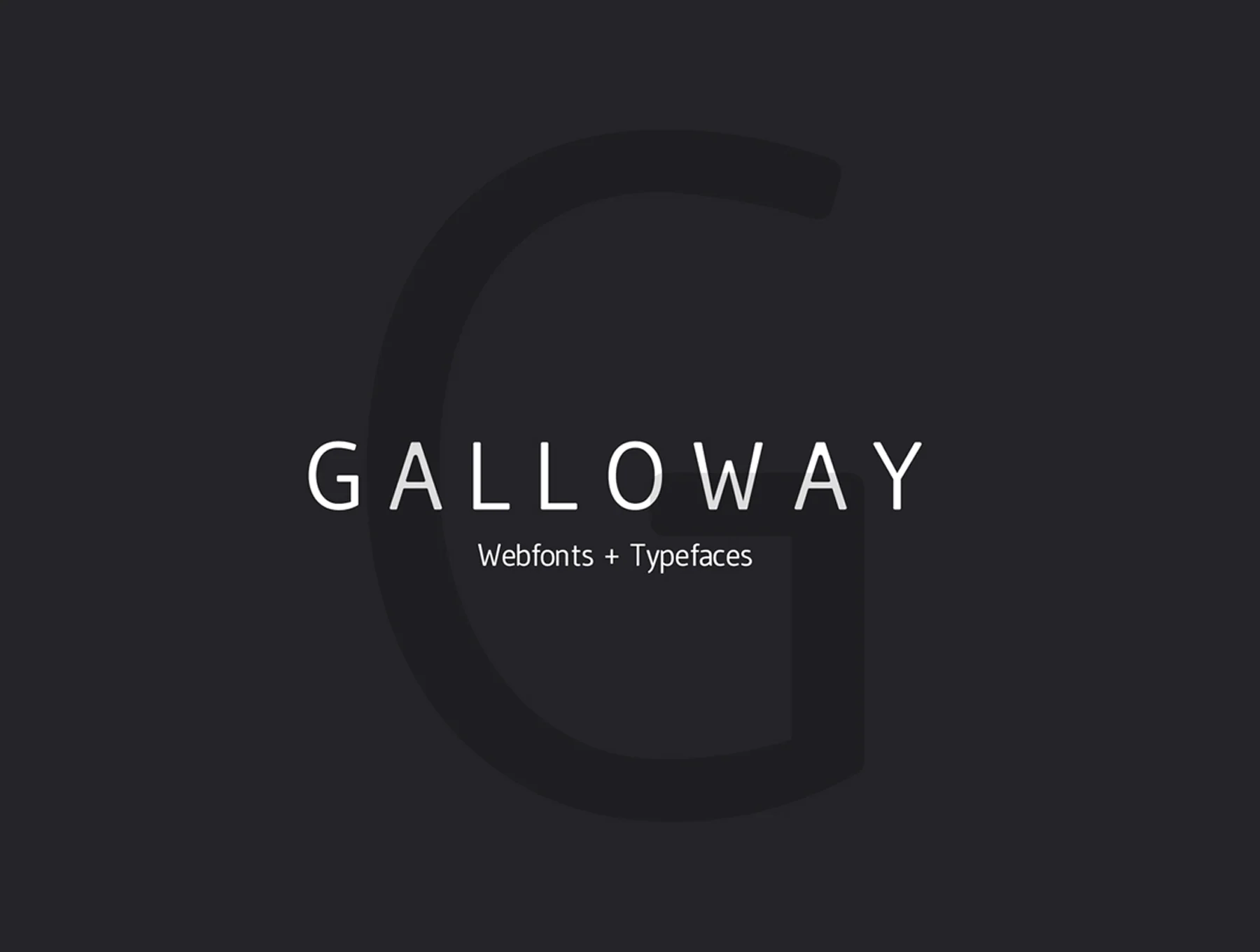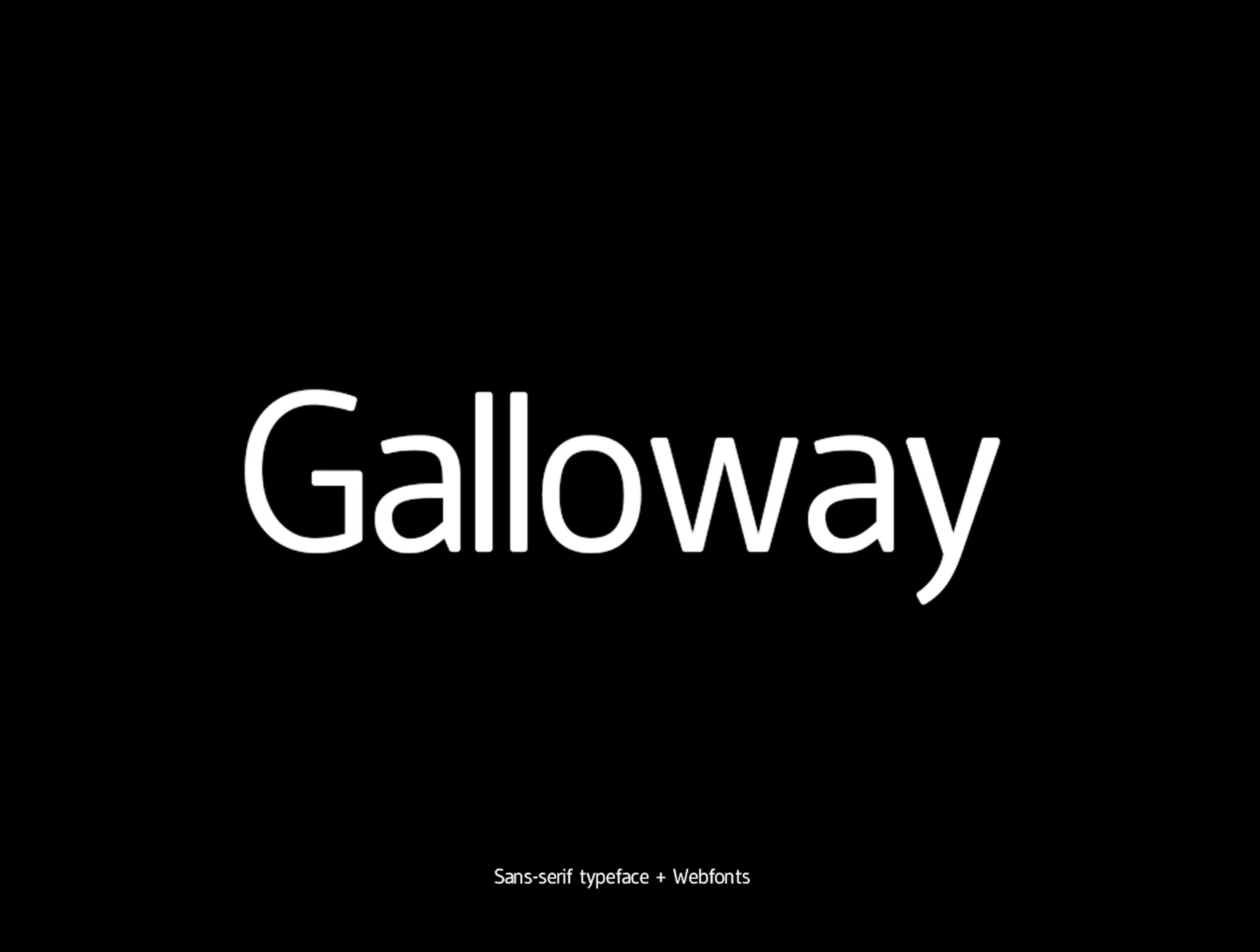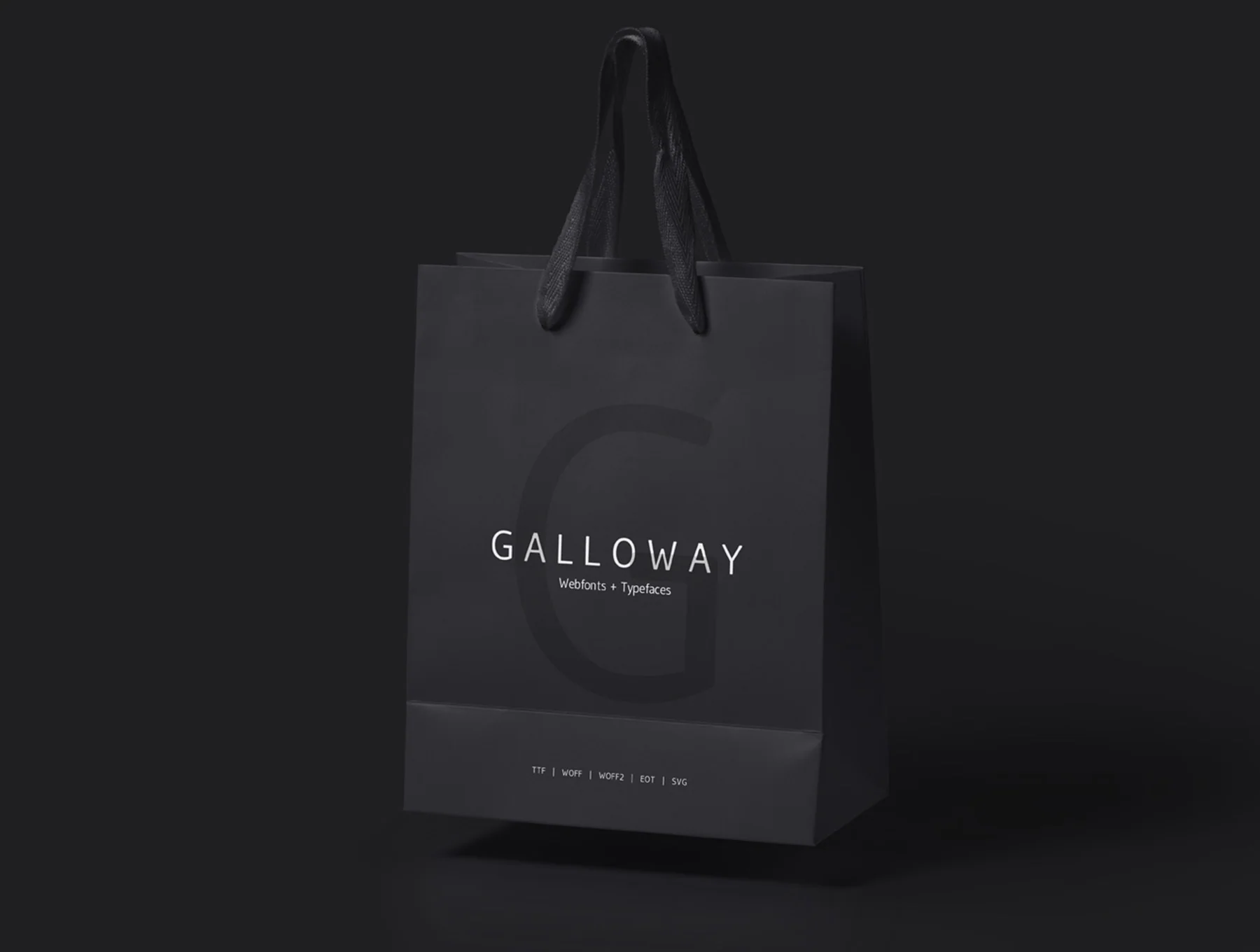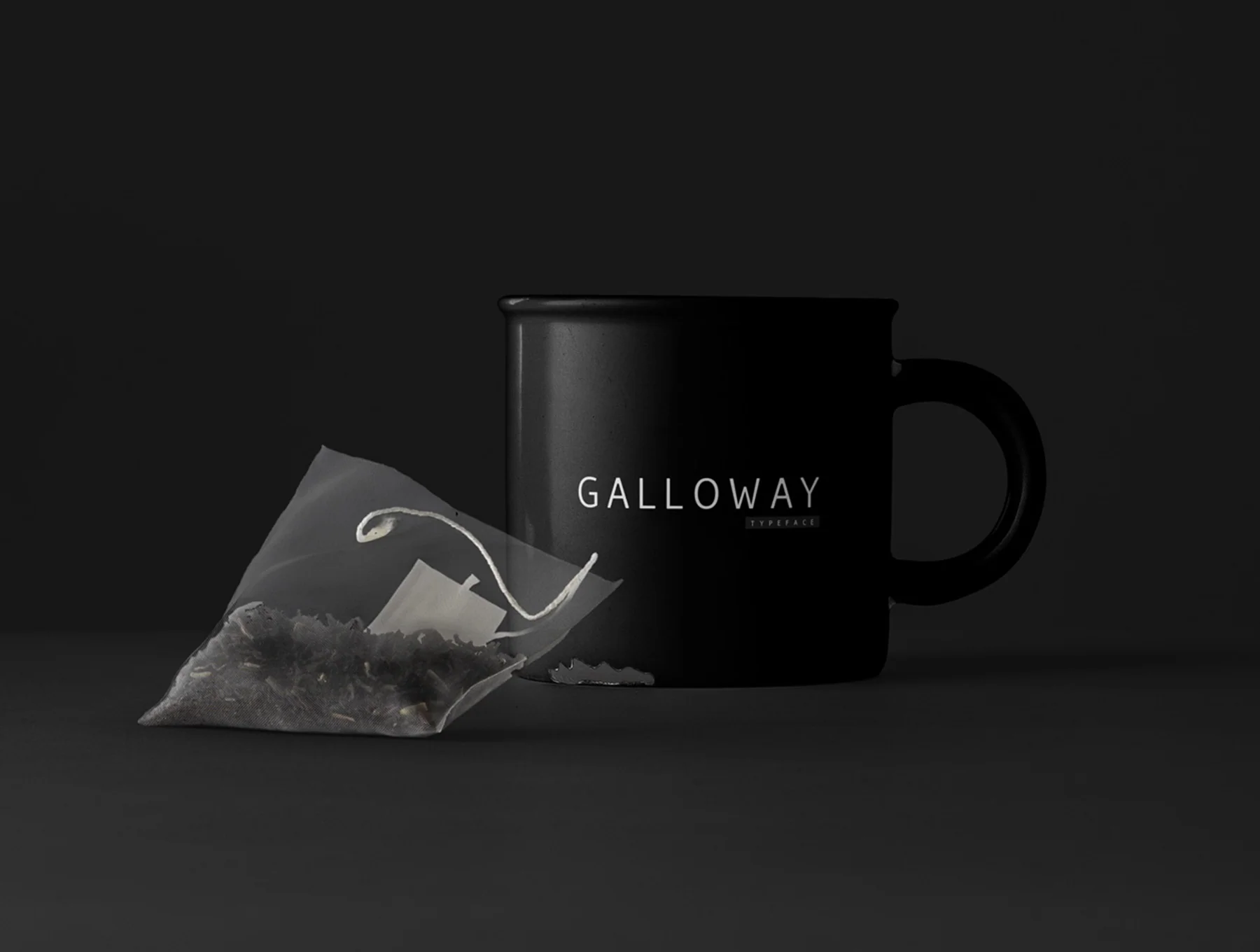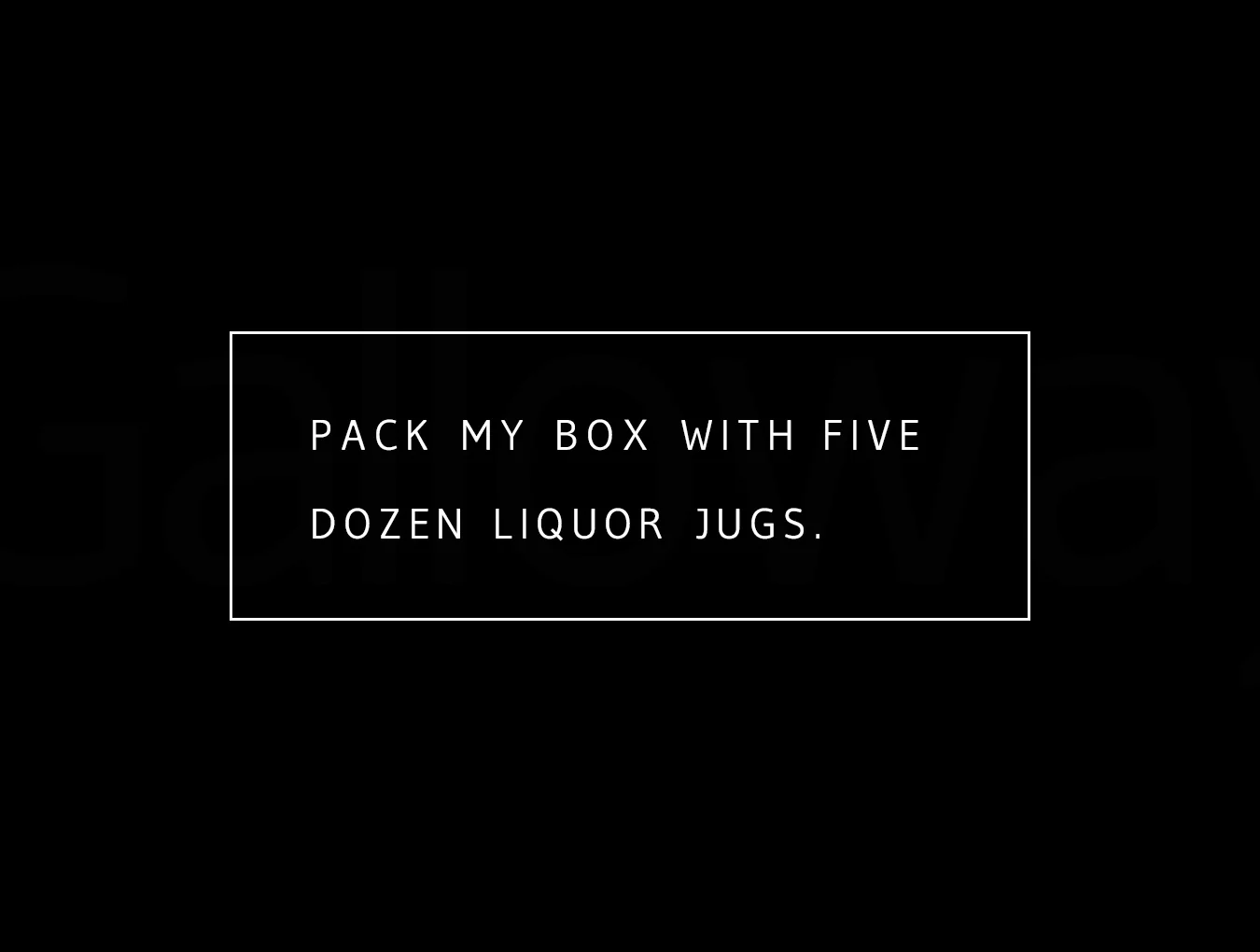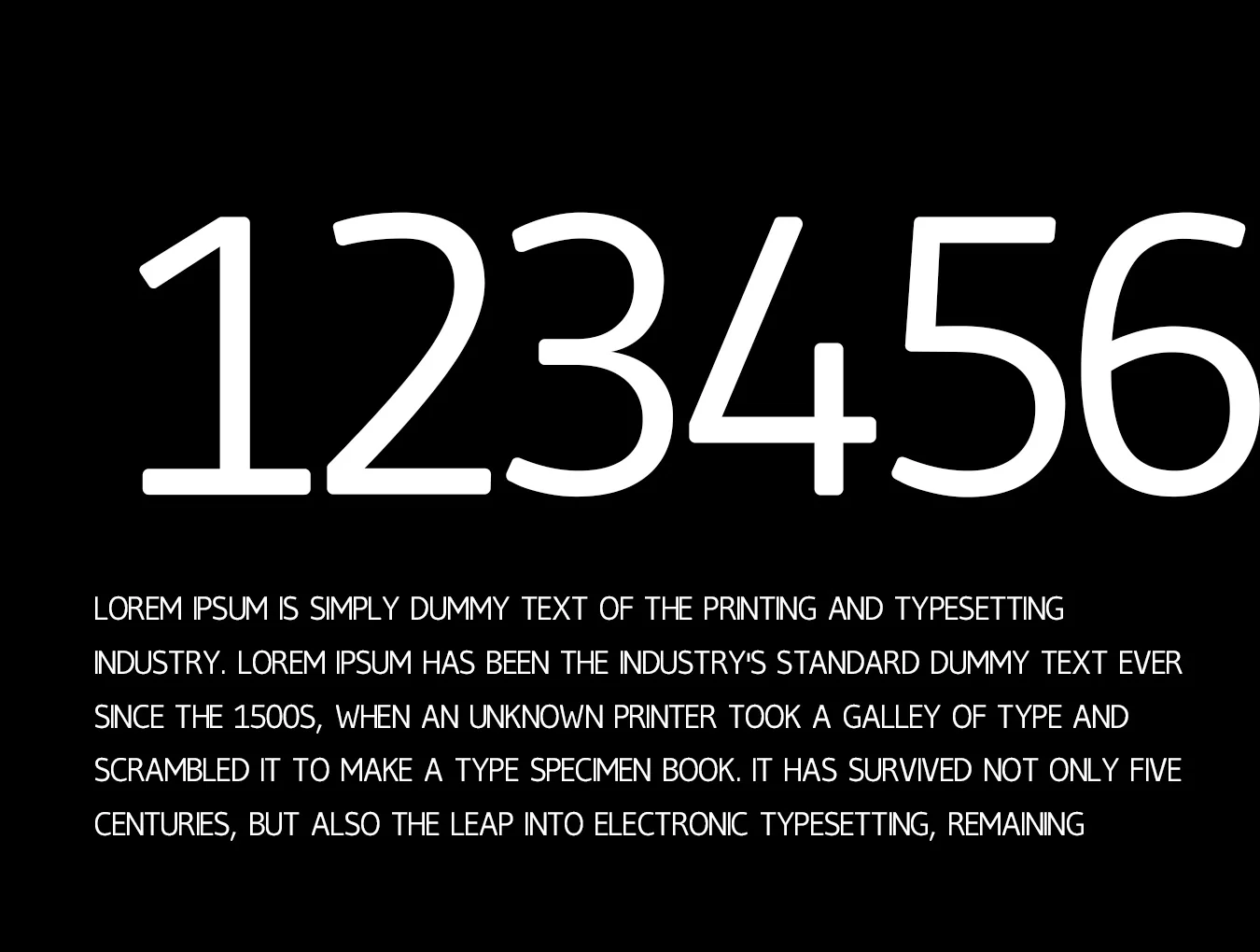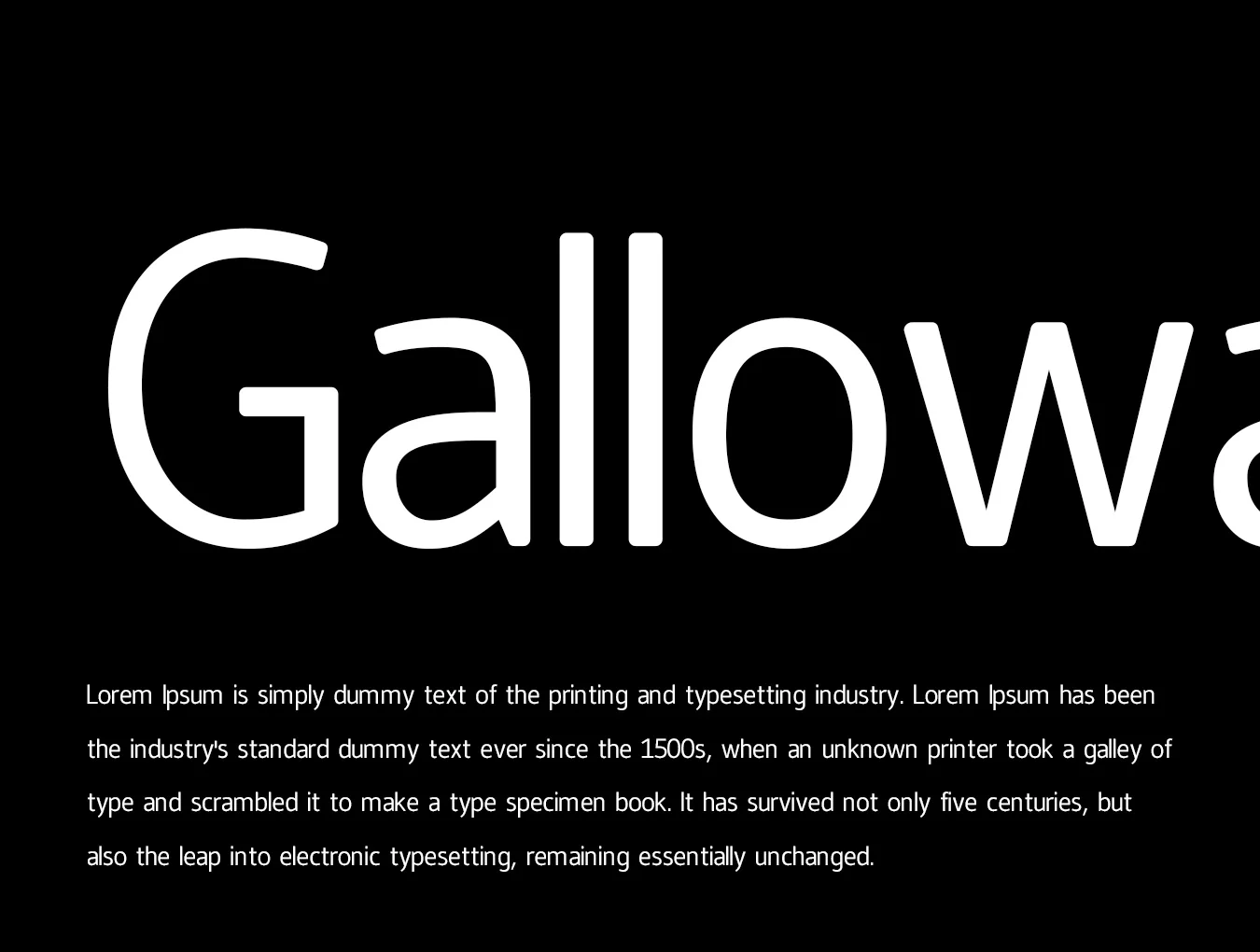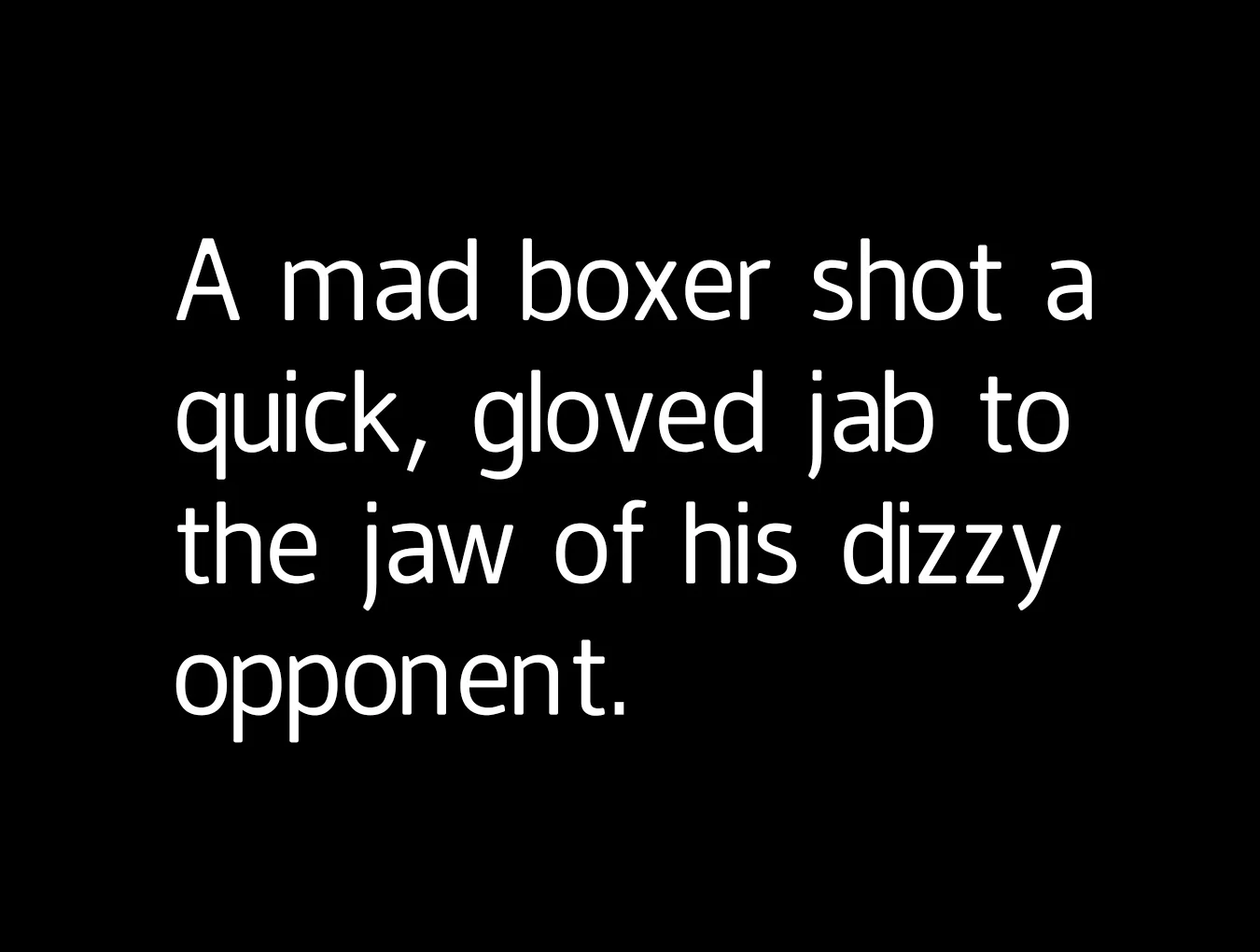
Galloway - Modern Typeface + WebFont
Striking, creative sans serif font
Contemporary and imaginative style
Sans serif font family
Galloway Modern Typeface is a clean, contemporary sans serif font with a refined minimalist style, ideal for creative projects and timeless typography layouts. The package contains OTF, TTF, and web font files, including EOT, SVG, TTF, and WOFF formats, plus HTML webfont demos in the download.